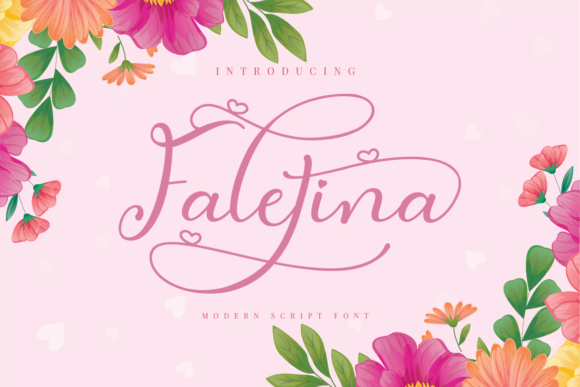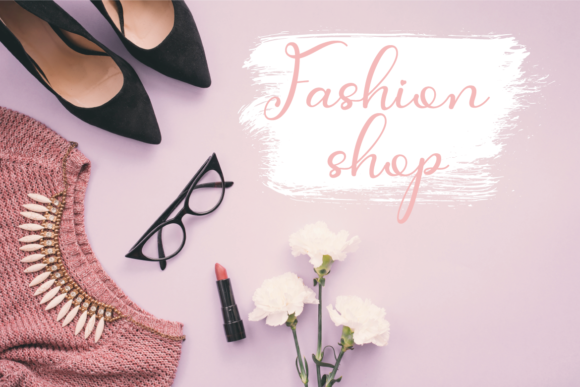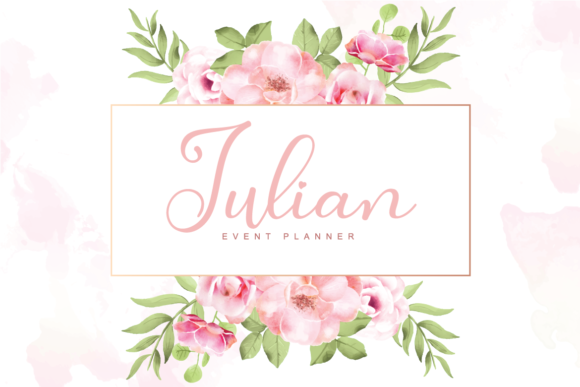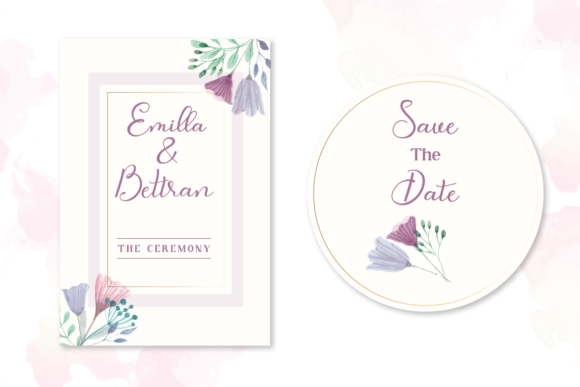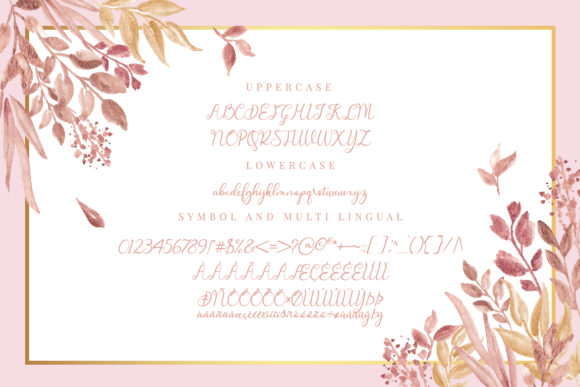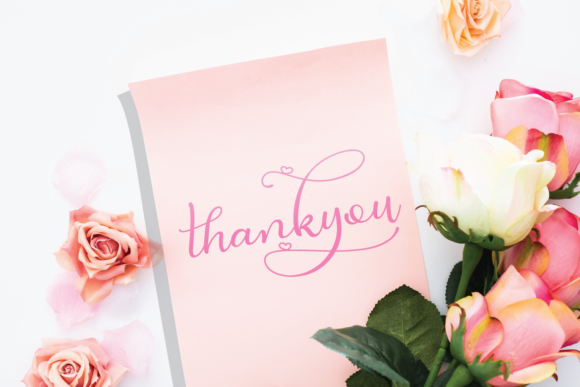
Faletina Font
About Faletina Font
Faletina is a dynamic and cute script font. The beautiful round character makes it the perfect modern font for creating amazing crafts!